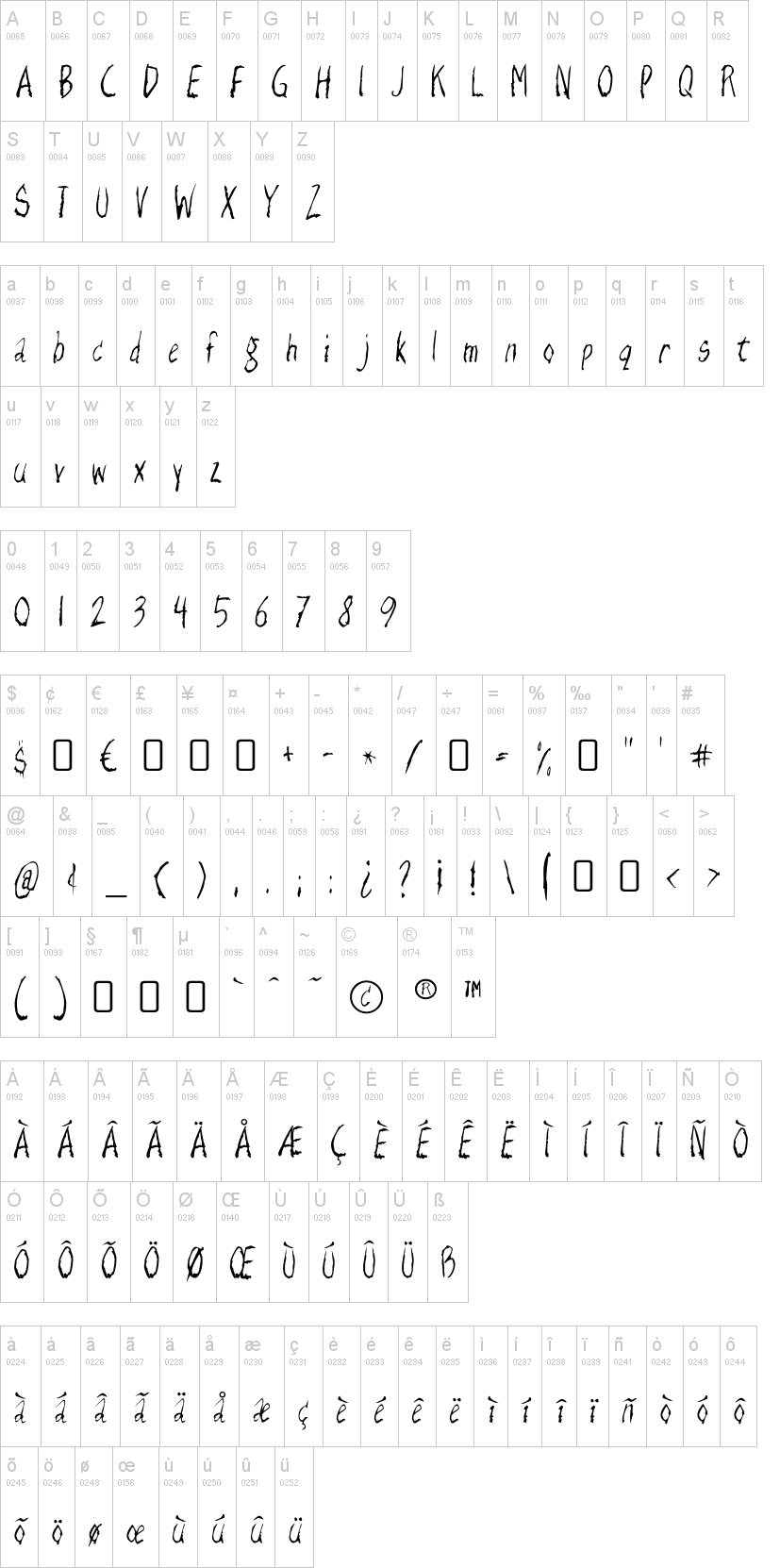
Razor Keen is frightful slasher cacography, scrawled with a mapping quill on newsprint. Don't forget to read the files inside the zip for details. Updated in 2012.